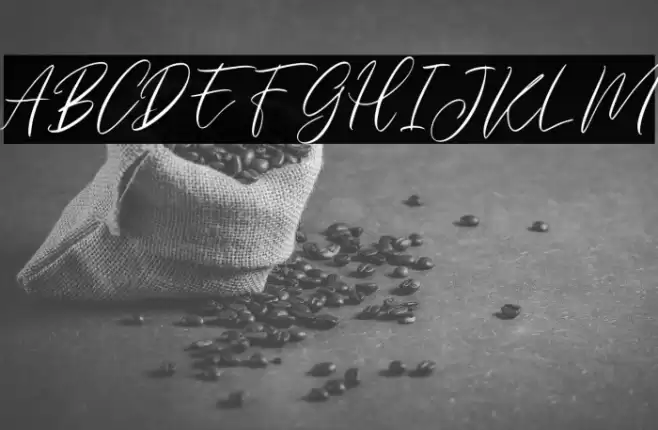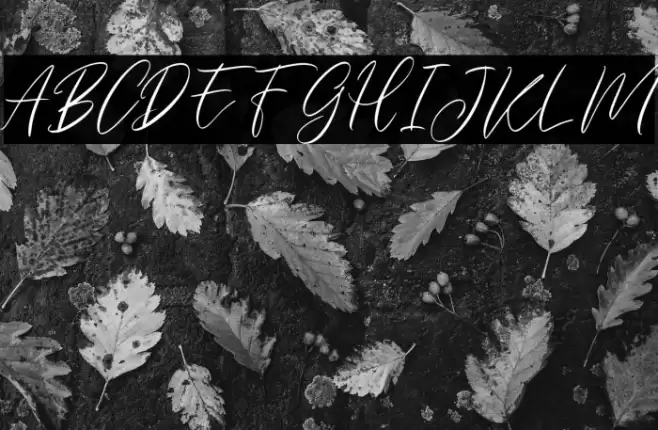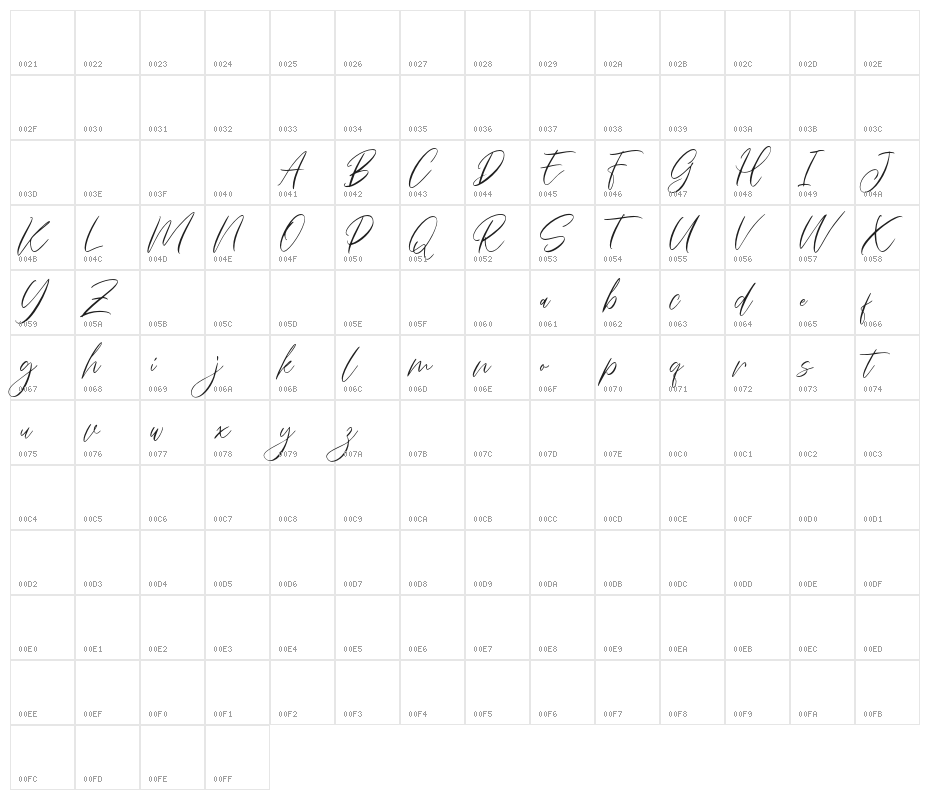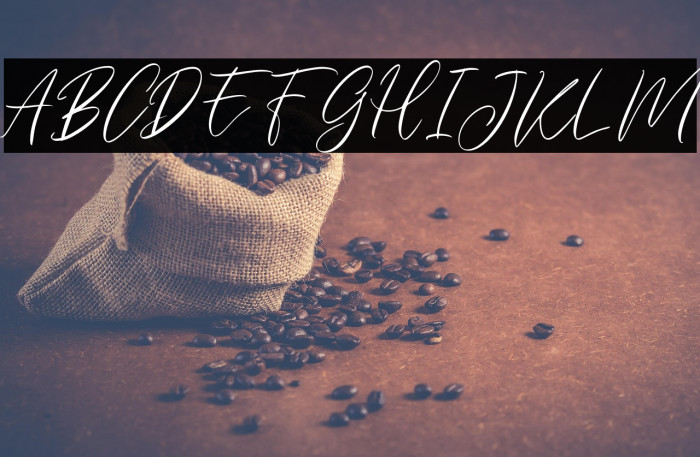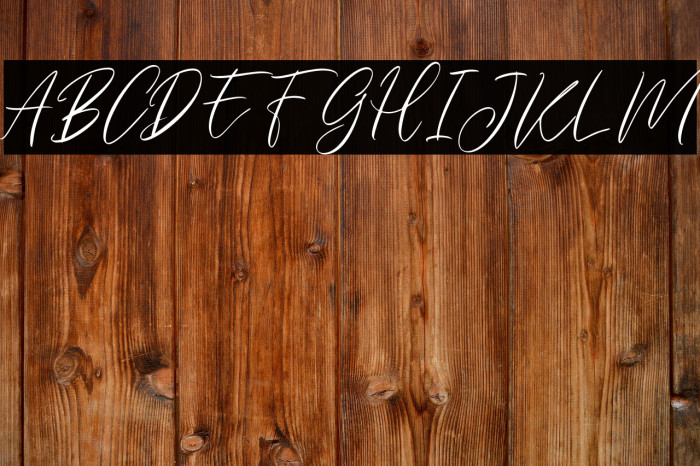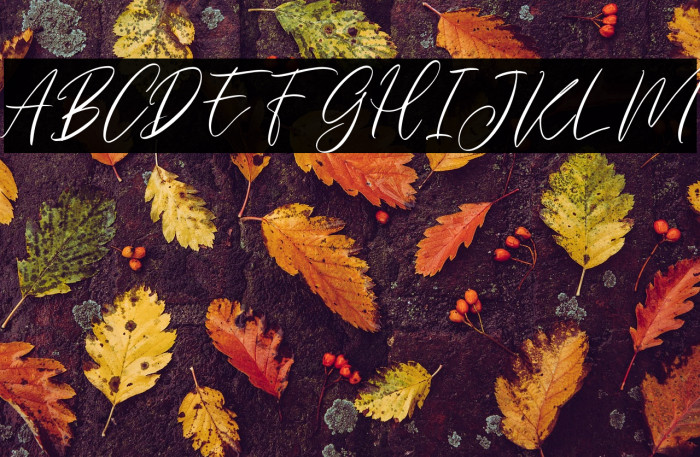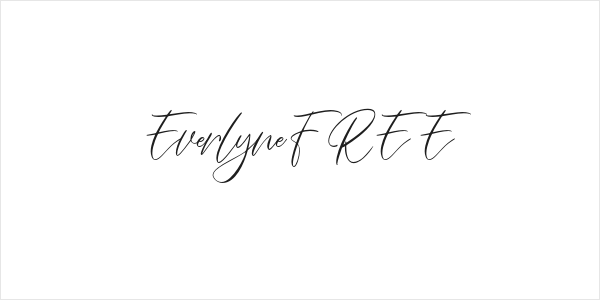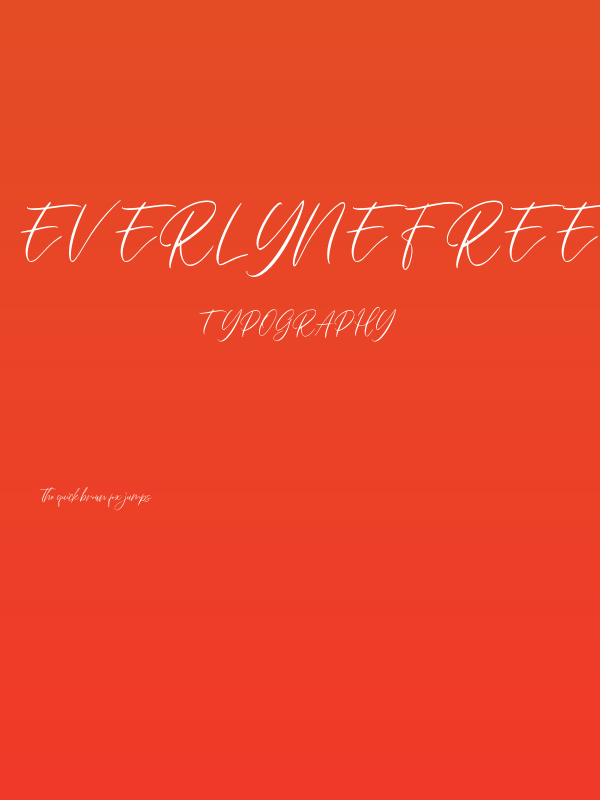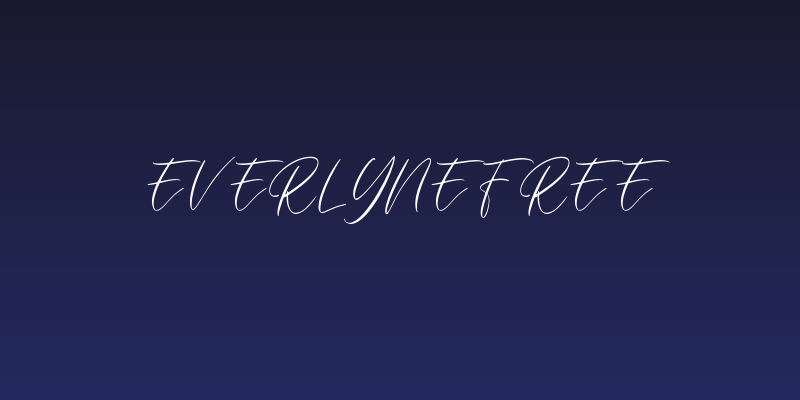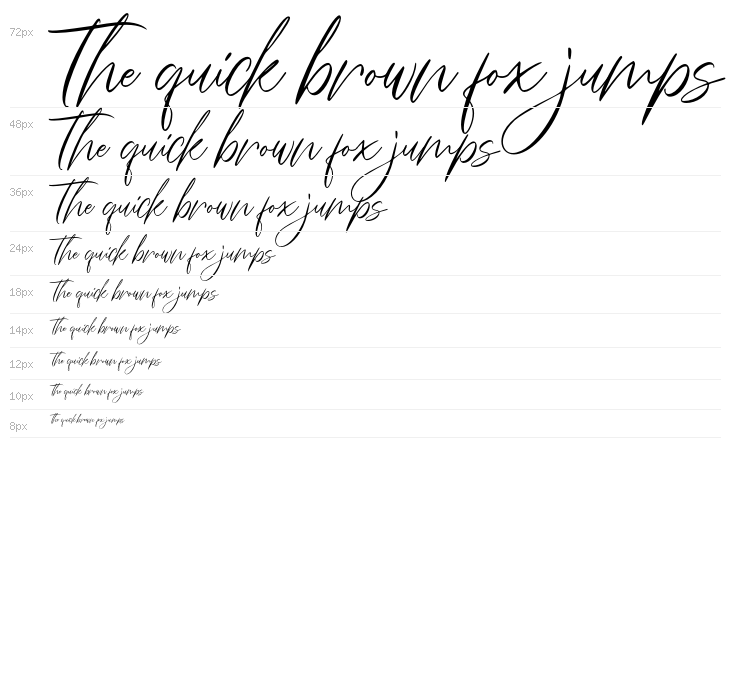
EverlyneFREE Font
EverlyneFREE Description
This font exudes elegance and fluidity, characterized by its cursive script style. The letters are interconnected, creating a seamless flow that mimics natural handwriting. The uppercase letters are tall and graceful, while the lowercase letters maintain a consistent rhythm with delicate loops and swashes. The overall appearance is sophisticated and artistic, making it ideal for projects that require a personal touch. The font's thin strokes and slight variations in thickness add to its charm, providing a sense of movement and dynamism.
A graceful cursive script font with elegant, flowing letters from Uncategorized fonts.
- Font: EverlyneFREE
- Character Spacing: Tight
- Overall Style: Elegant